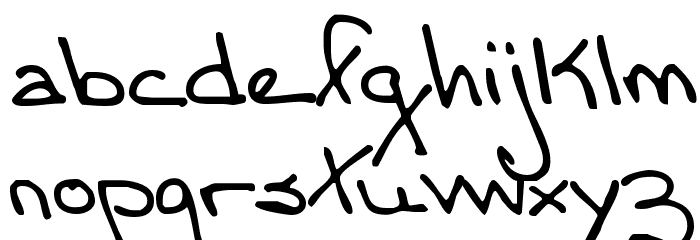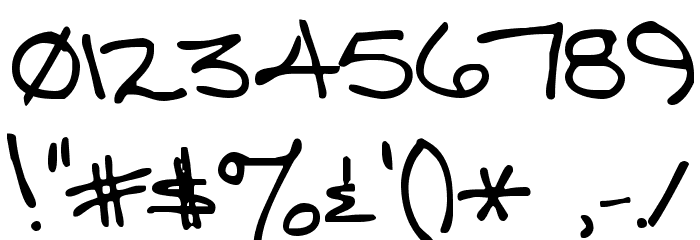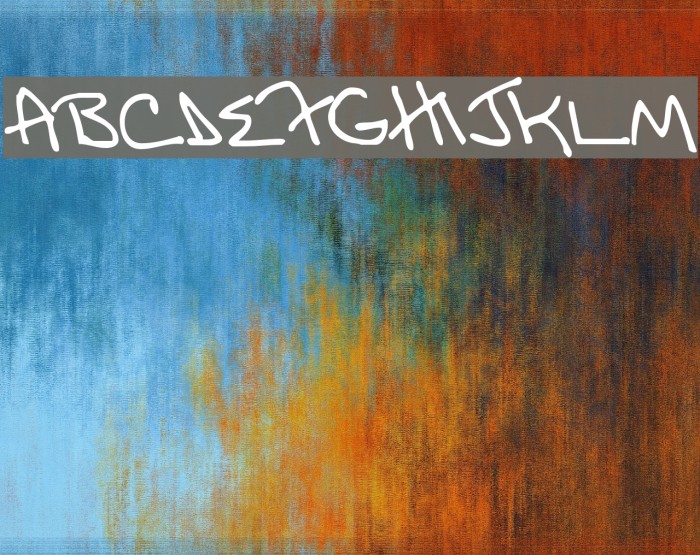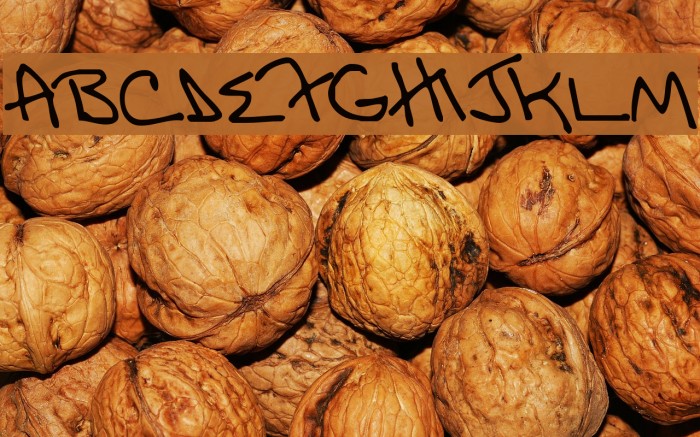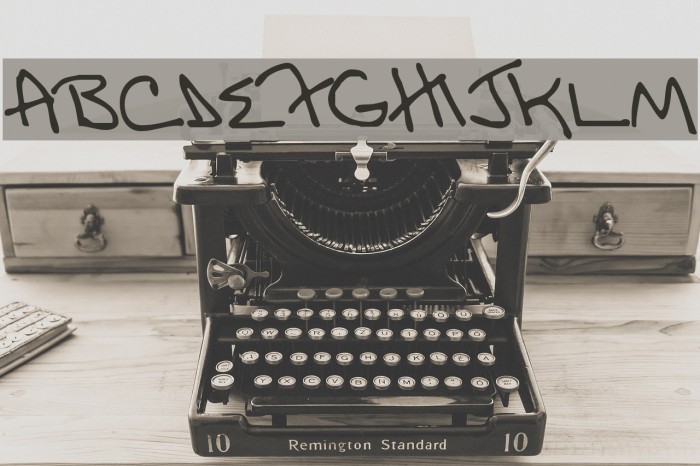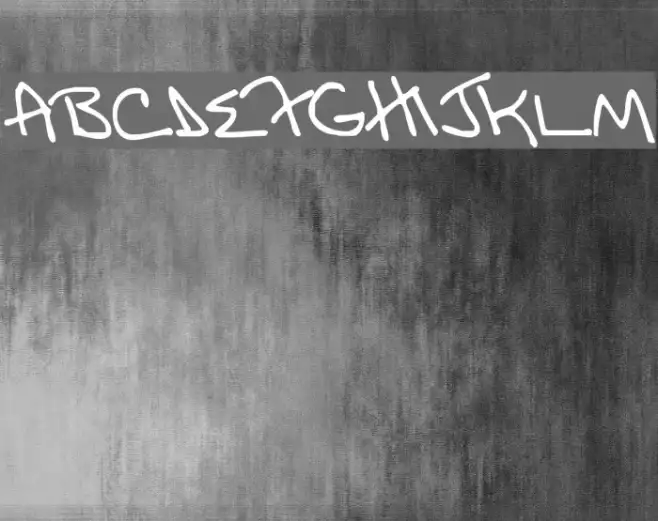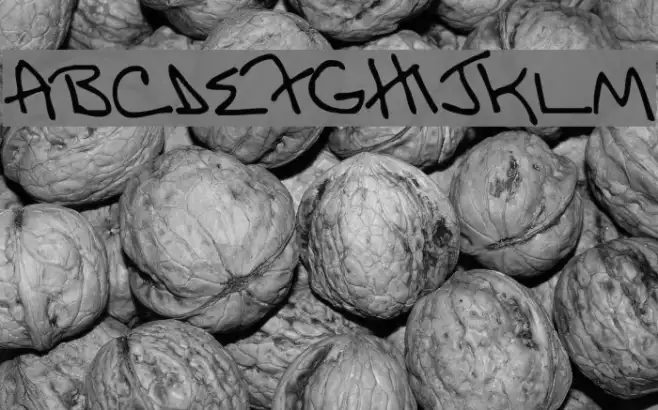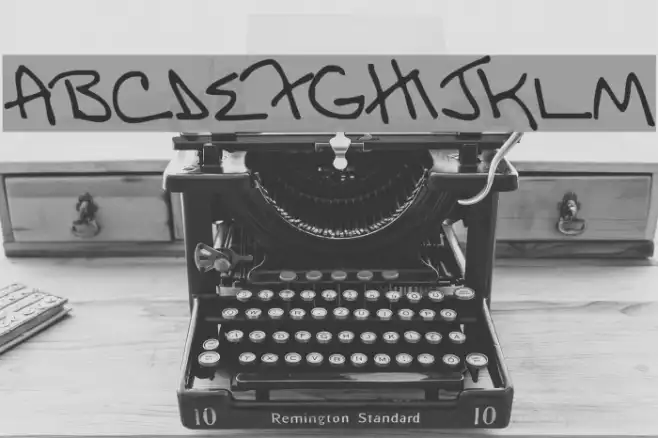
Moms Font Font
This font features a playful and casual handwritten style, characterized by its irregular strokes and spontaneous appearance. The letters are slightly slanted, giving a dynamic and lively feel. Uppercase and lowercase letters maintain a consistent flow, with rounded edges and varying line thickness that adds to its informal charm. The numerals and special characters follow the same whimsical design, making the font suitable for creative and informal projects. Its unique style is reminiscent of personal notes or doodles, offering a friendly and approachable aesthetic.
A playful, handwritten font with a casual and dynamic style.
- Proposed Projects: Ideal for greeting cards, children's books, casual branding, and personal blogs.
- Overall Style: Casual, Playful
- Use Case: Headlines, Informal text, Creative projects